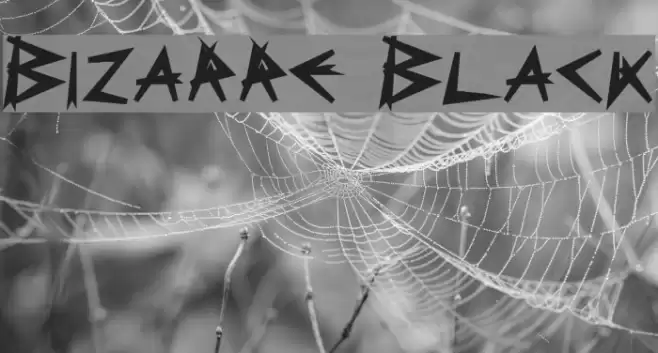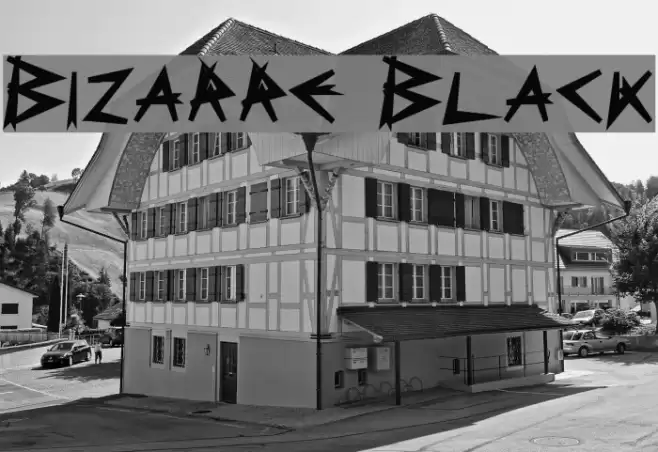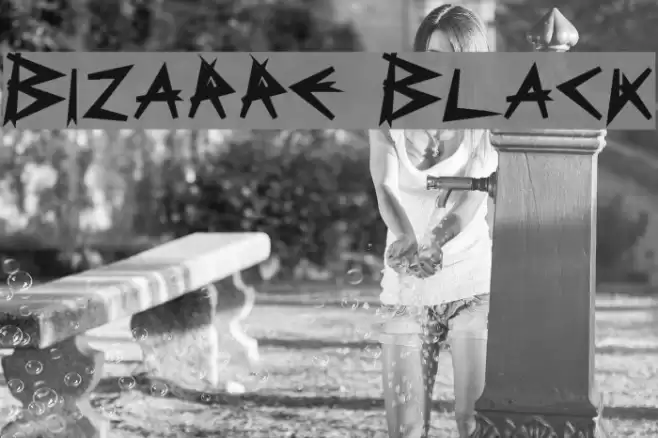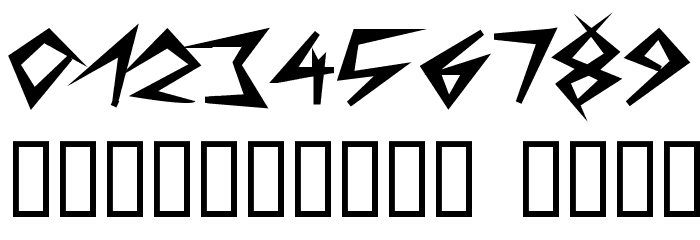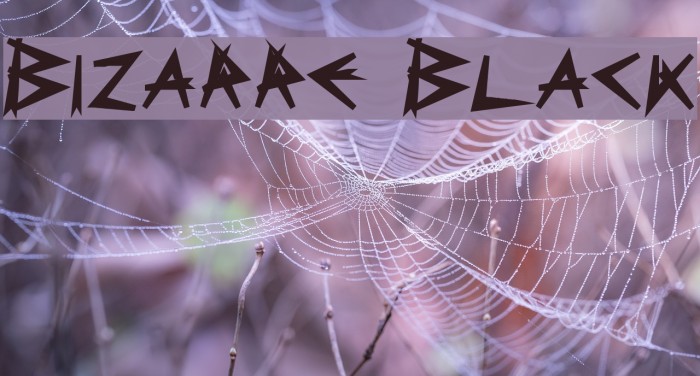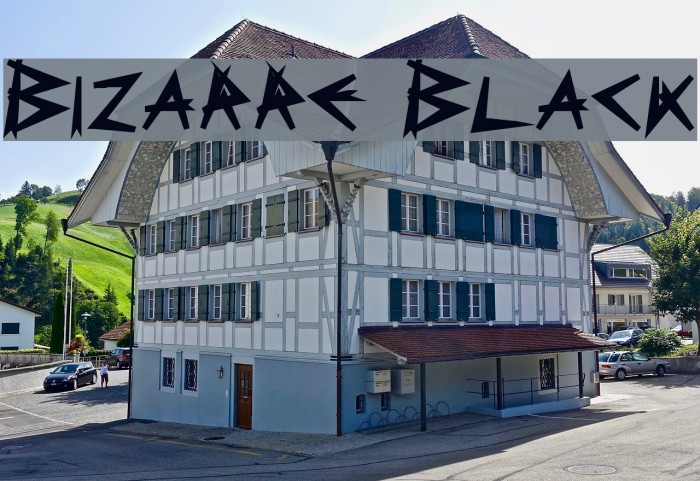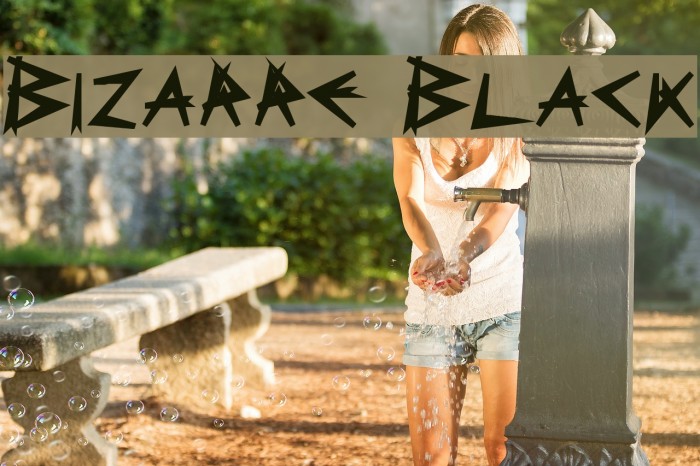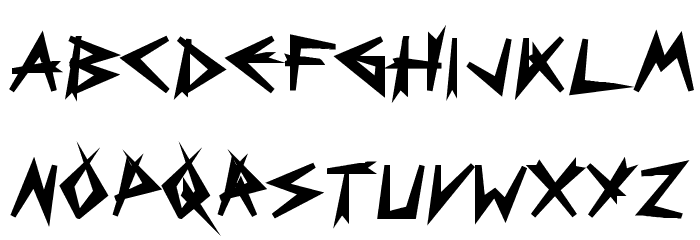
Bizarre Black Font
Bizarre Black Description
This font features a bold and edgy design with sharp, angular lines that create a sense of movement and dynamism. The characters are highly stylized, with exaggerated points and a slightly chaotic appearance, making it stand out with a rebellious flair. The uppercase and lowercase letters maintain a consistent style, while the numbers and special characters follow suit with the same jagged, energetic aesthetic. This font is perfect for projects that require a bold statement and a touch of unconventional creativity.
A bold, edgy font with sharp, angular lines and a rebellious flair from Decorative fonts.
- Proposed Projects: Ideal for music album covers, skateboarding brands, graffiti art, and edgy fashion labels.